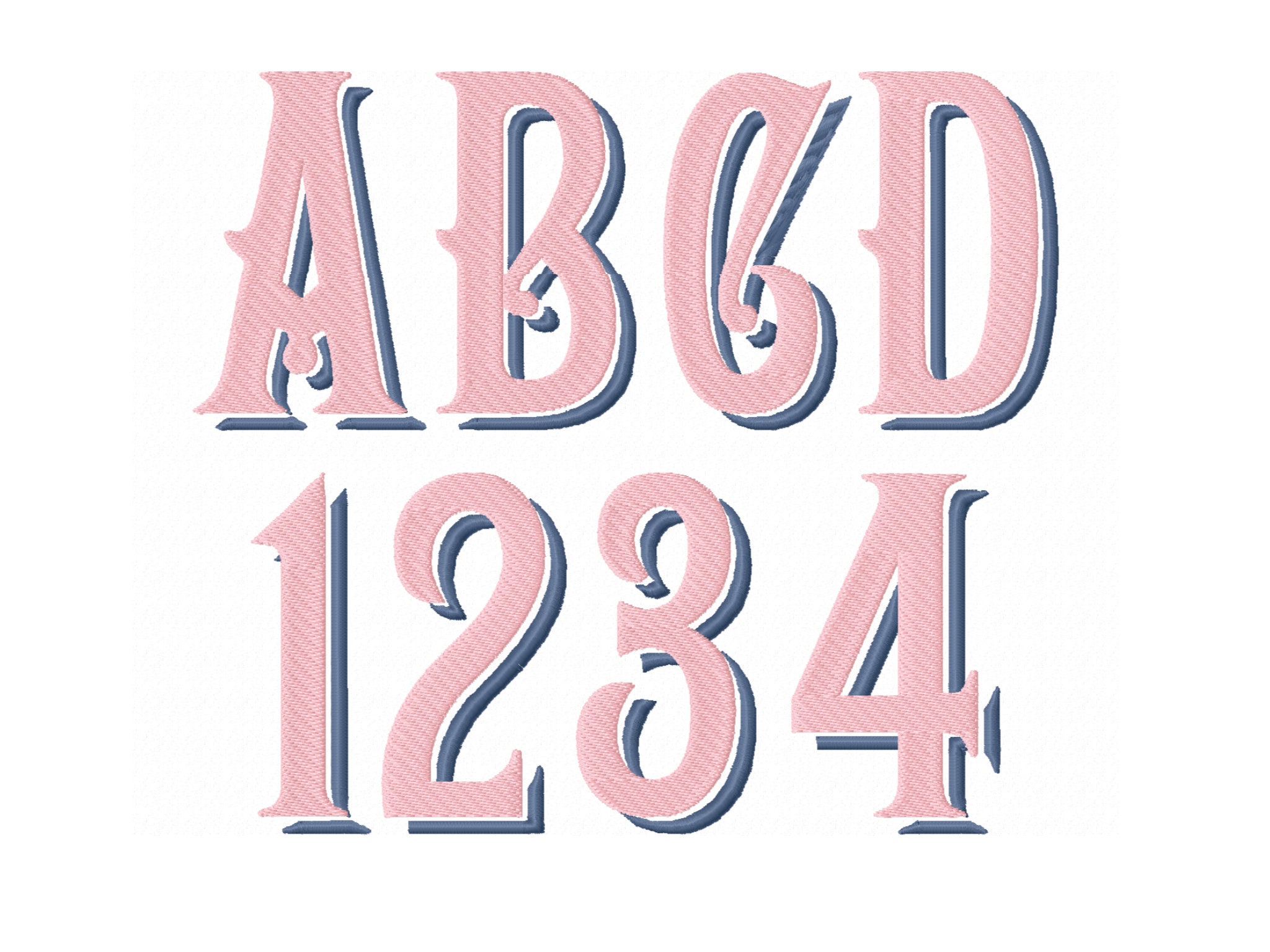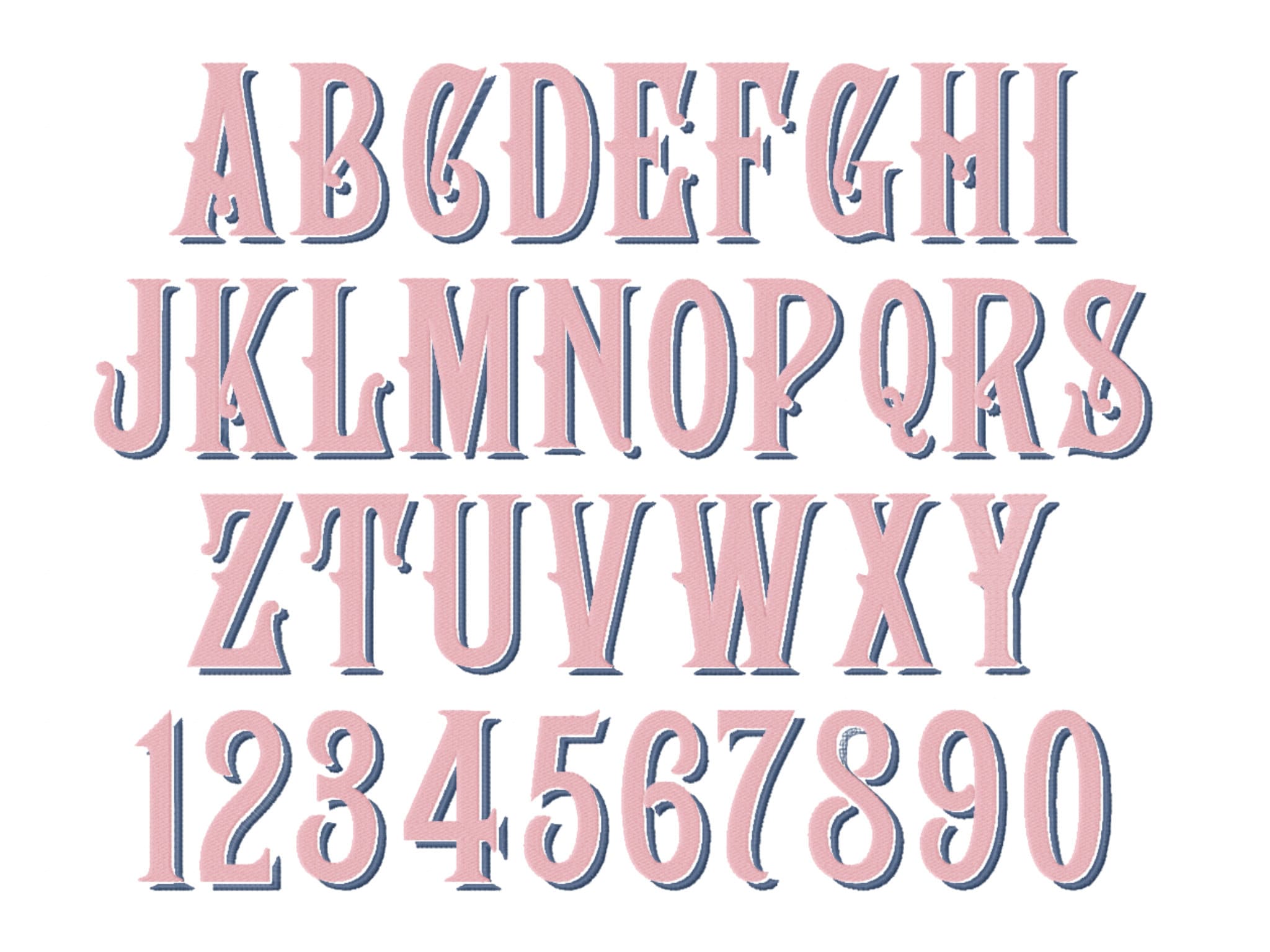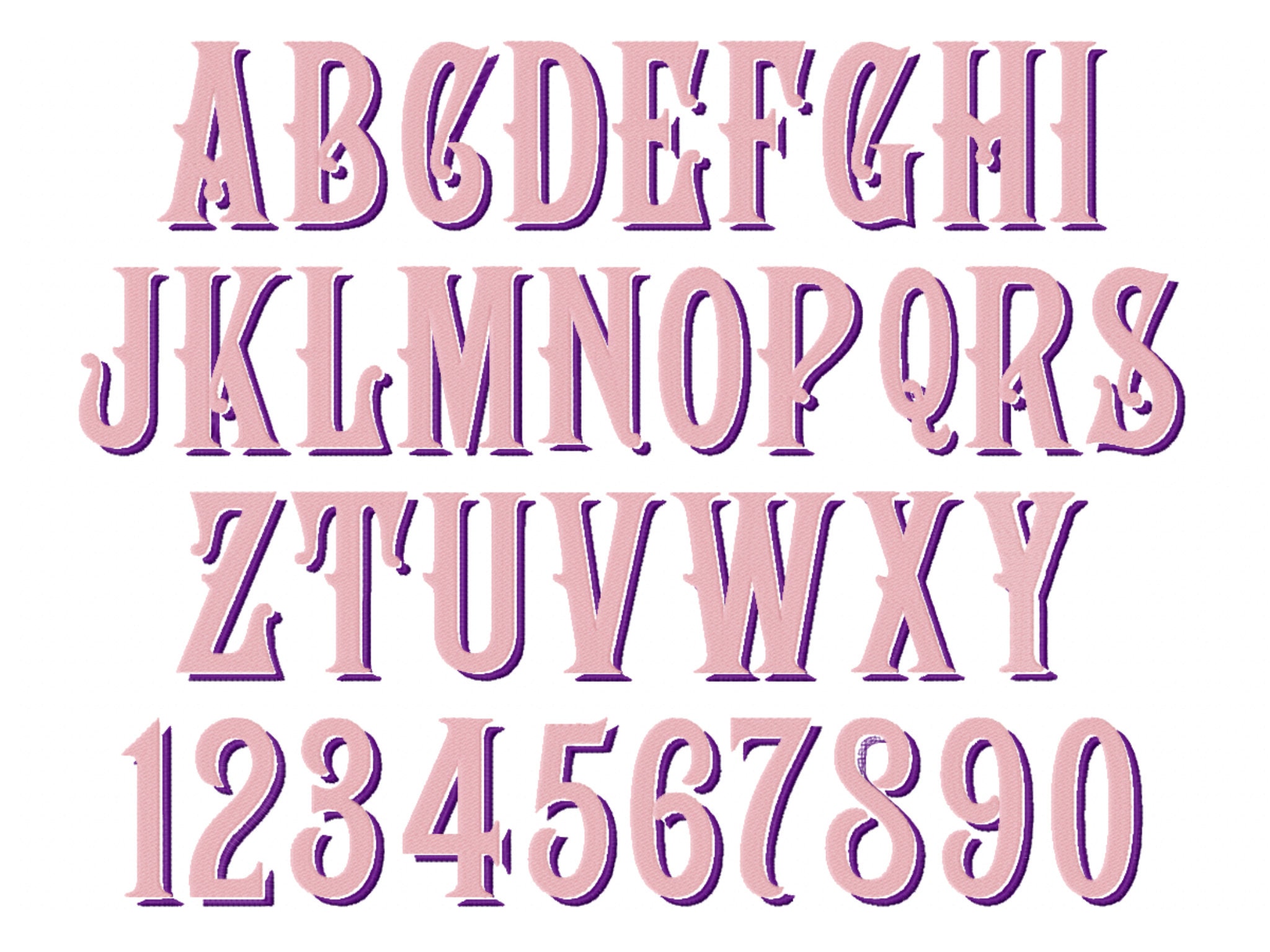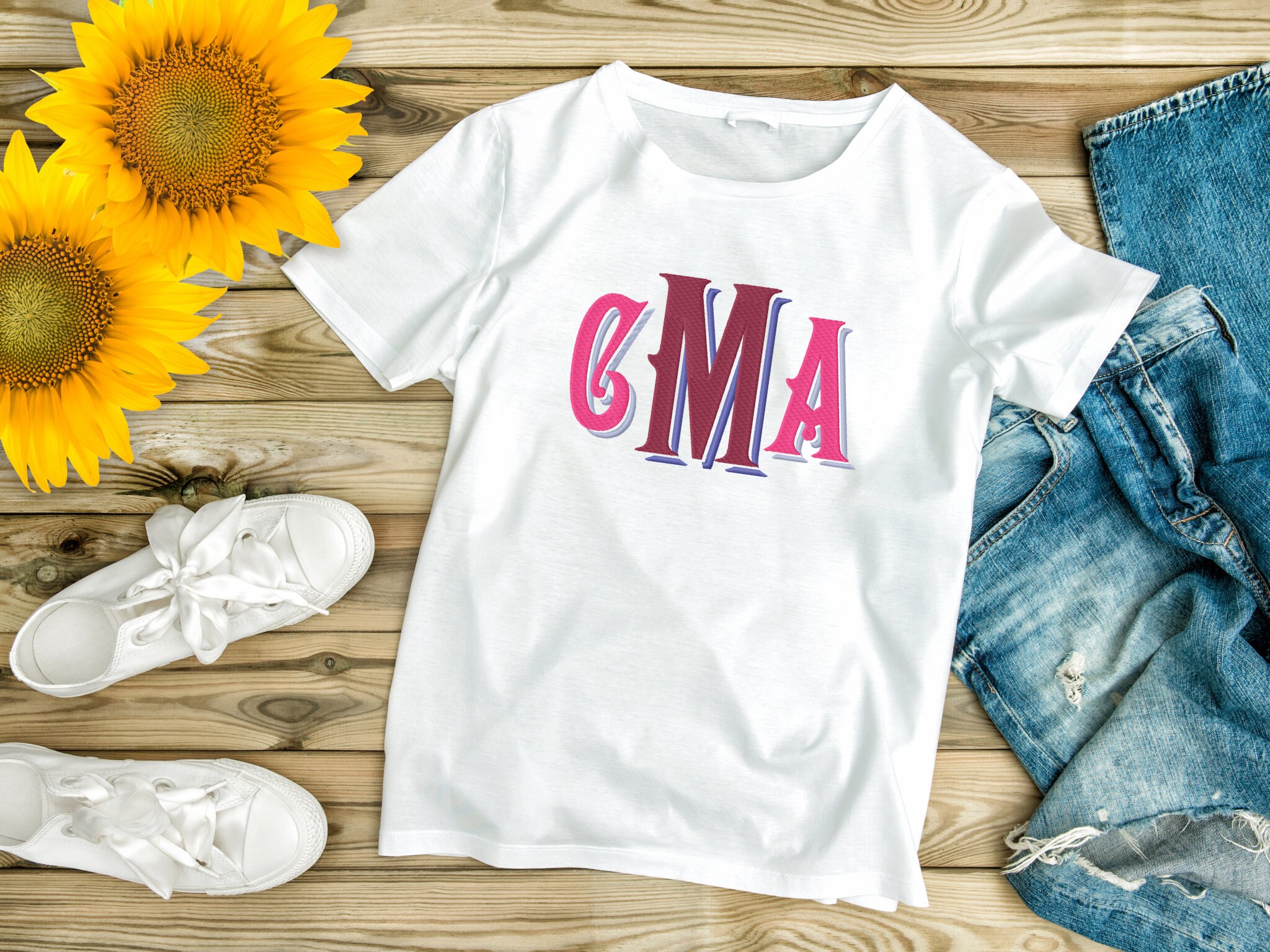
Classic Monogram Drop Shadow FONT Machine Embroidery Designs 2 color Alphabet Letters Fill Stitch sizes 1.8 up to 4.3 inches BX
Entire alphabet uppercase letters, and numbers.